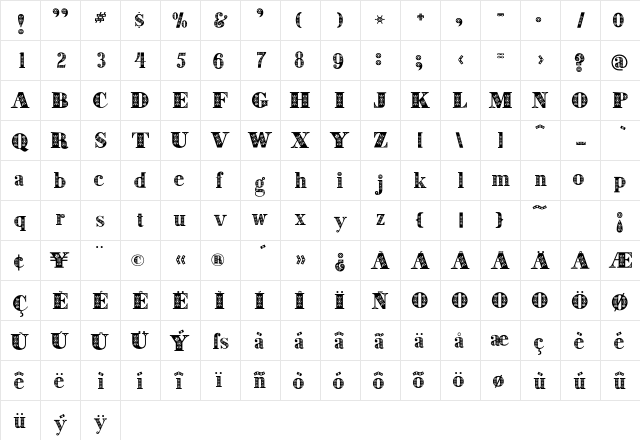
Decorative Medium
Design Context for Decorative Typeface
Decorative is built around its visual character rather than neutral utility — its distinctive forms are designed to make an impression at display sizes.
Font Pairing: Pair with a clean neutral sans-serif for body copy to let Decorative's character lead without overwhelming the composition.
Pro Tip: Treat Decorative as the centrepiece of your typographic hierarchy. One strong heading set in a decorative face can carry an entire layout.